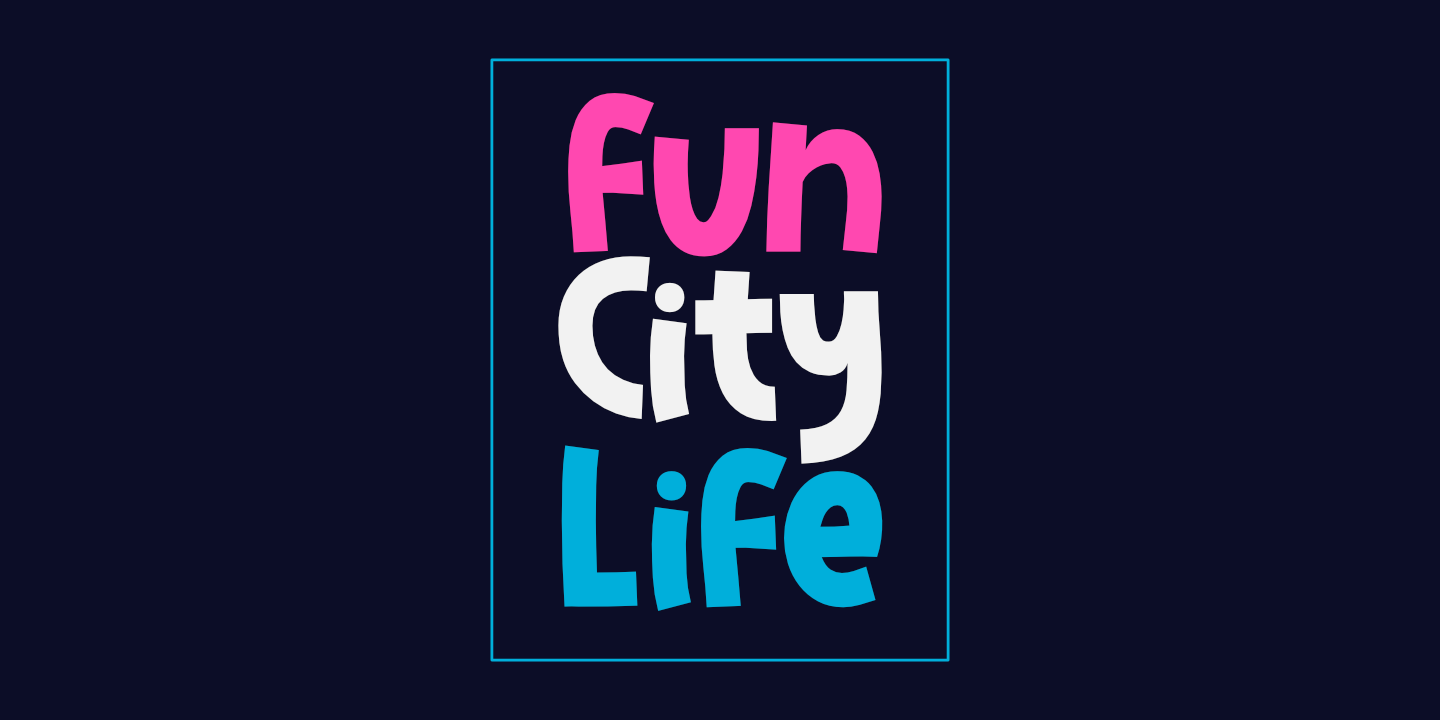
Fun City Life Font is perfect for urban entertainment venues, city lifestyle magazines, metropolitan event promotions, downtown restaurant branding, nightlife establishment signage, urban fashion labels, city tourism campaigns, modern apartment complexes, vibrant café graphics, and energetic metropolitan designs.
Fun City Life Font is exciting because it pulses with the dynamic energy and endless possibilities of urban living through vibrant letterforms that capture the bustling rhythm of city streets and the electrifying excitement of metropolitan culture, making it perfect for brands celebrating urban vitality and cosmopolitan lifestyle.
The Fun City Life Font family includes regular and bold weights with urban-inspired alternates, cityscape ornaments, and metropolitan decorative elements, providing designers with energetic tools for creating typography that thrives with authentic city spirit and urban sophistication.
When your project needs urban energy and metropolitan excitement, Fun City Life Font Free Download delivers the perfect typographic celebration of city living and urban culture. This dynamic display typeface combines metropolitan sophistication with contemporary functionality, ensuring your brands resonate with audiences seeking genuine urban experiences and cosmopolitan lifestyle appeal. The vibrant letterforms and city-inspired styling make this font an essential choice for urban businesses, entertainment venues, and any application where city energy, metropolitan culture, and urban lifestyle are crucial for connecting with communities that thrive on the endless excitement, cultural diversity, and dynamic opportunities that make city life an adventure worth celebrating every single day.